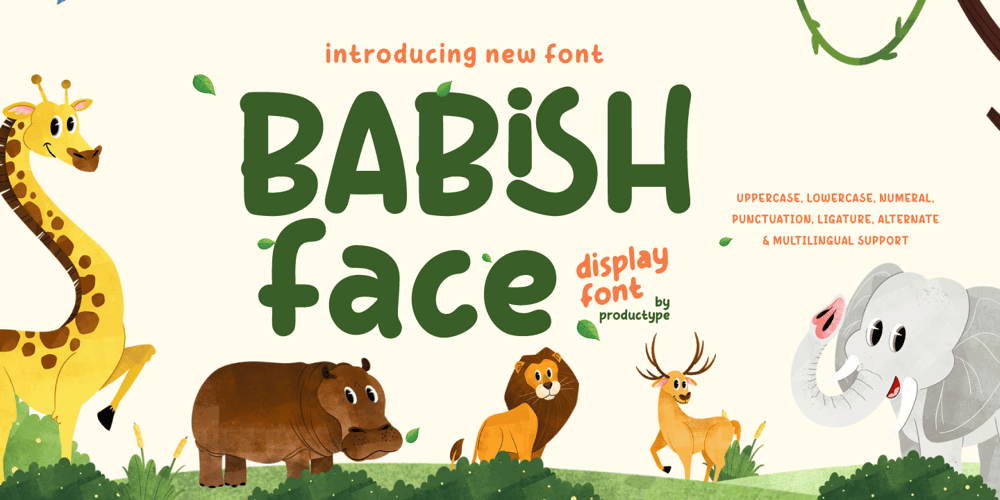
Babish Face Font Family was designed by Lita Faolina and published by Product Type. Babish Face contains 2 styles and family package options. “Welcome to a world of fun with Babish Face, a display font that combines a fun touch and an interesting aesthetic. Designed to liven up the atmosphere with cute and friendly characters, Babish Face is the perfect choice for a variety of creative projects that require captivating visual appeal. Main feature:- Two Families: Babish Face comes with two unique family variants: – Regular: Clean, easy-to-read format, ideal for the main text, titles and content that requires high readability. – Alternate: More abstract and experimental shapes, perfect for adding an artistic and dynamic touch to your designs.- Uppercase & Lowercase: Provides a balanced combination of uppercase and lowercase letters for design flexibility.- Numeral & Punctuation: Equipped with complete numbers and punctuation to meet various communication needs.- Ligature & Alternate: Offers ligatures and letter alternatives that add uniqueness and variety to the use of fonts.- Multilingual Support: Multilingual support that allows use in various international contexts.Utility:- Child-Friendly Design: Ideal for children’s books, toys, educational products and everything related to the world of children.- Branding & Packaging: Suitable for food packaging, organic products and items that require a friendly and inviting appearance.- Event Promotions: Add a fun feel to event posters, party invitations and thematic decorations.- Digital Content: Make digital content such as social media, blogs and websites more interesting and lively.With Babish Face, each letter plays a role in conveying a message of happiness and cheerfulness. Whether you’re designing something simple or trying to create an out-of-the-box design, Babish Face provides incredible flexibility and visual appeal. Make Babish Face part of your design toolkit and let its visual magic enhance each of your projects.